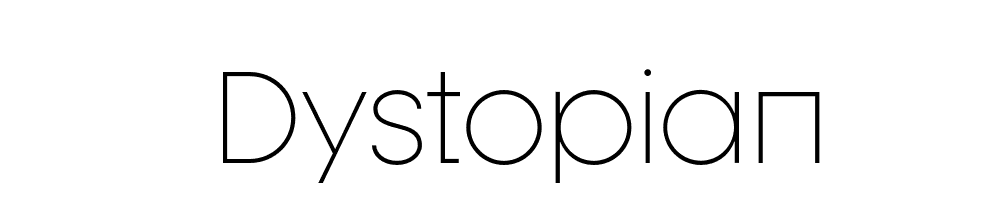
Please note that Dystopian Font must be purchased for commercial use. You are welcome to download and test this font for personal and non-commercial projects at no cost. This powerful, futuristic display typeface is perfectly suited for a visionary and edgy range of design applications, including sci-fi book and comic covers, video game titles, dark cyber-punk branding, movie posters, abstract digital art, and any project that aims to evoke a sense of advanced technology, social collapse, or the stark, organized gloom of a future under total control.
The reason Dystopian Font is genuinely exciting is its ability to translate a complex narrative—the divided and often bleak future—into clean, compelling geometry. It often features sharp angles, unconventional letter structures, and controlled spacing, giving the text a chilling, systematic, and yet highly stylistic look. Whether paired with its lighter "Utopian" counterpart or used alone, the font maintains a dark, powerful presence that immediately gives your content a high-concept, cinematic gravity.
The Dystopian Font family typically offers a range of styles to articulate different aspects of its theme, often including Light, Regular, Bold, and Black weights. These styles ensure complete control over contrast and visual intensity. It also frequently incorporates stylistic sets and access to alternates that further emphasize its geometric or structured look. For a font that perfectly captures the aesthetic of tomorrow's shadowed world, secure your Dystopian Font Free Download today.